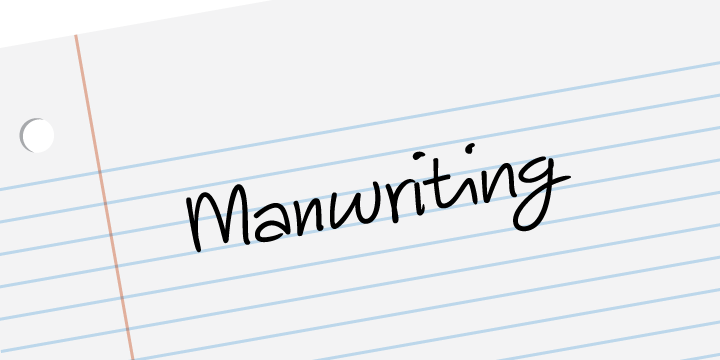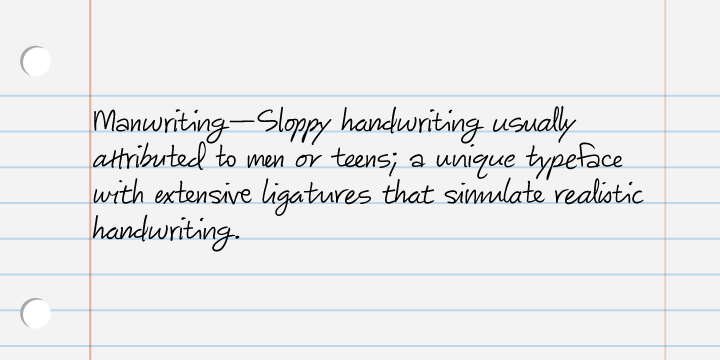
Manwriting
Manwriting is an extensive typeface with hundreds of ligatures used to simulate human handwriting.
Perfect for forging papers and love-letters!